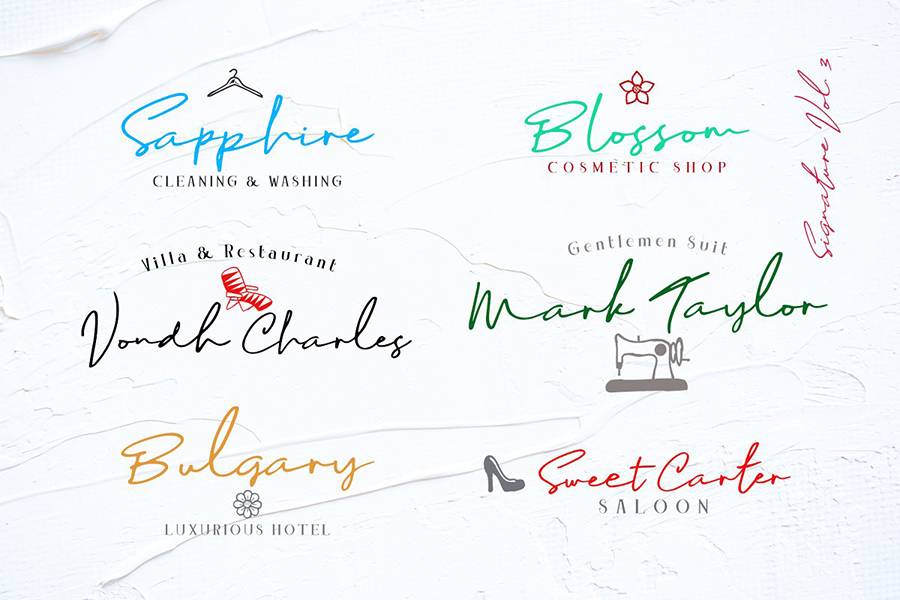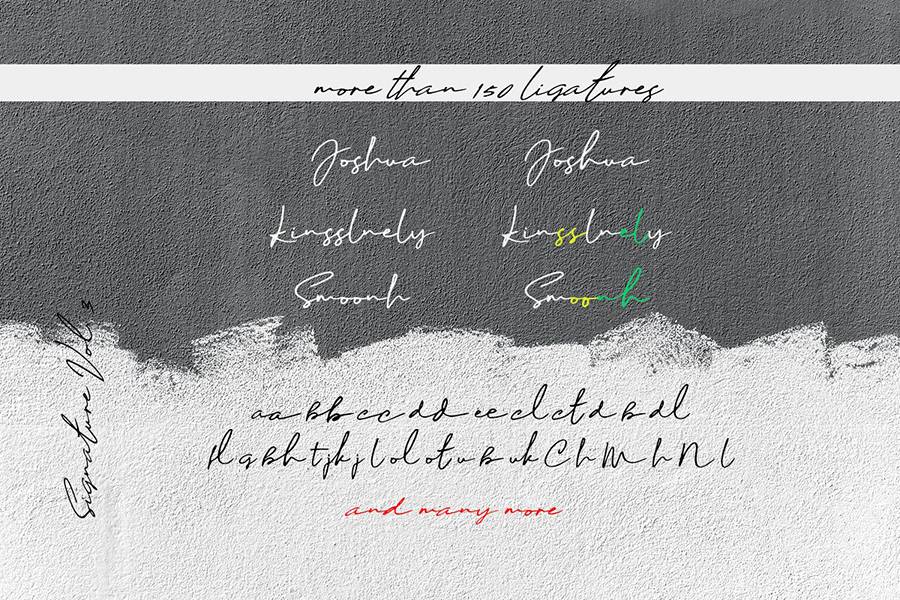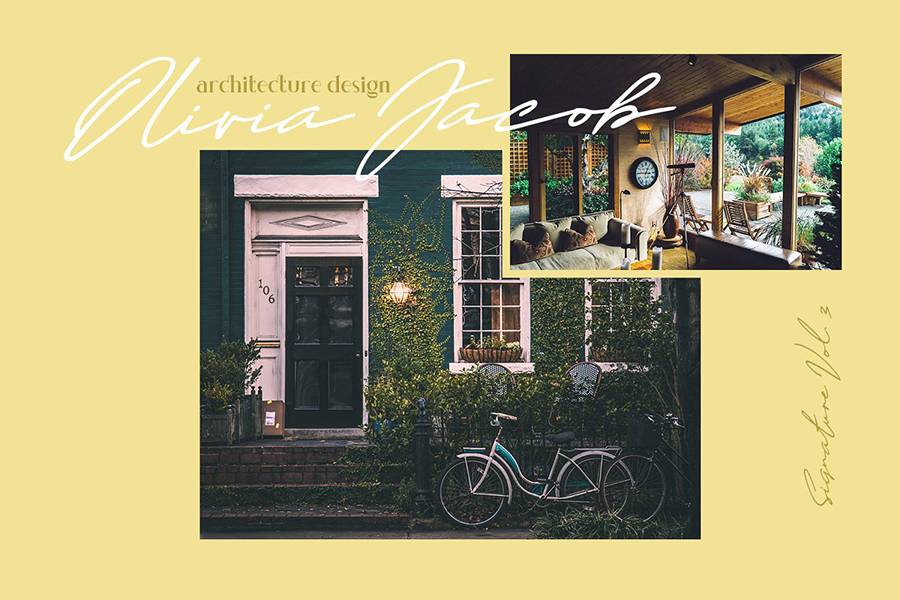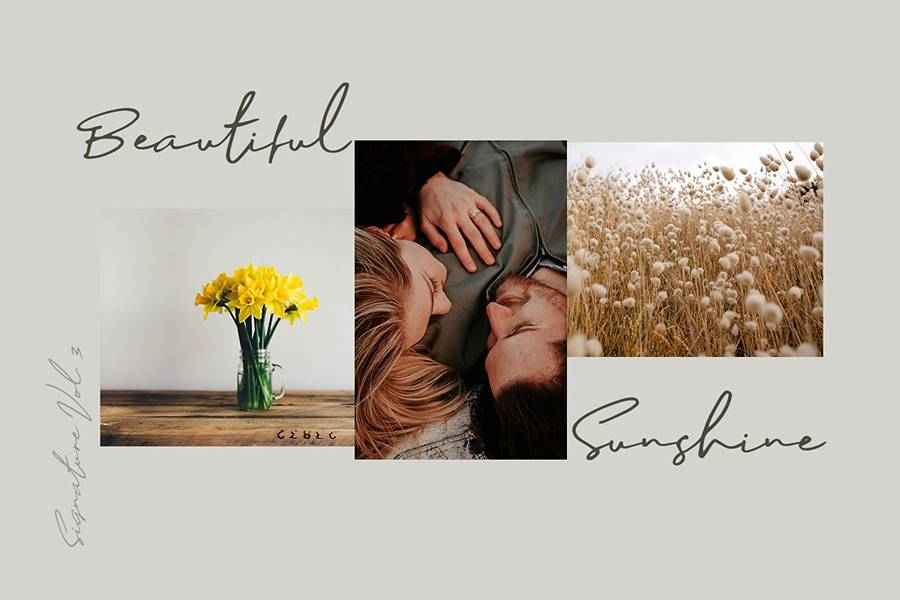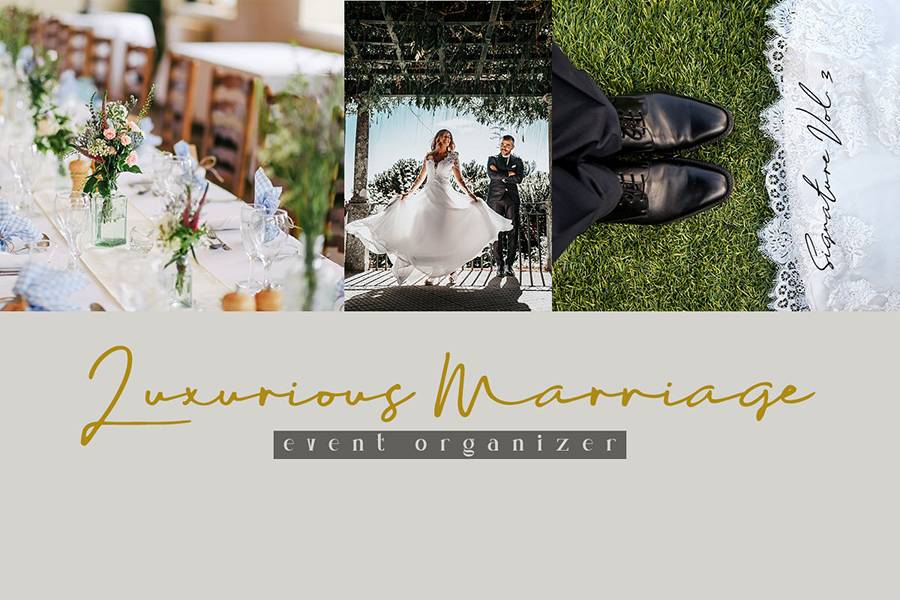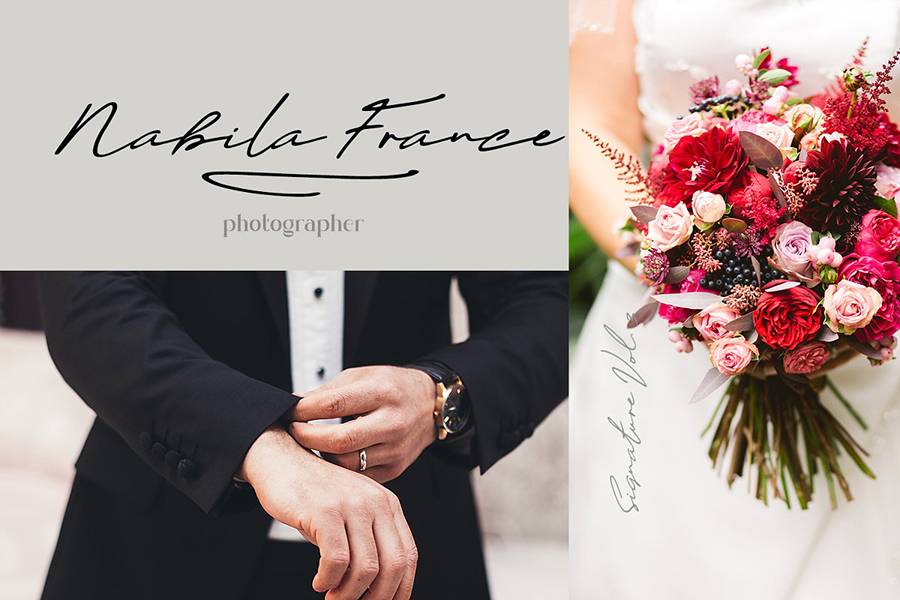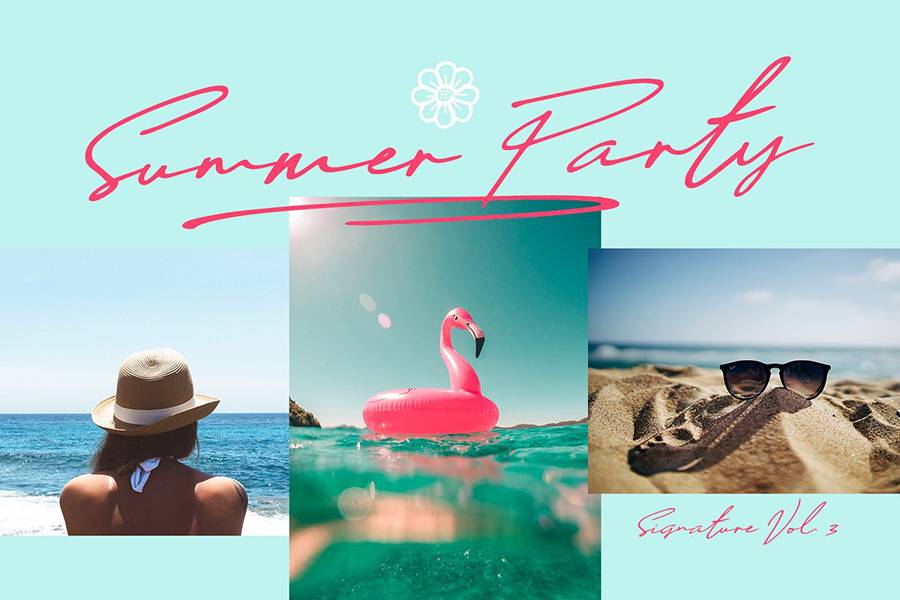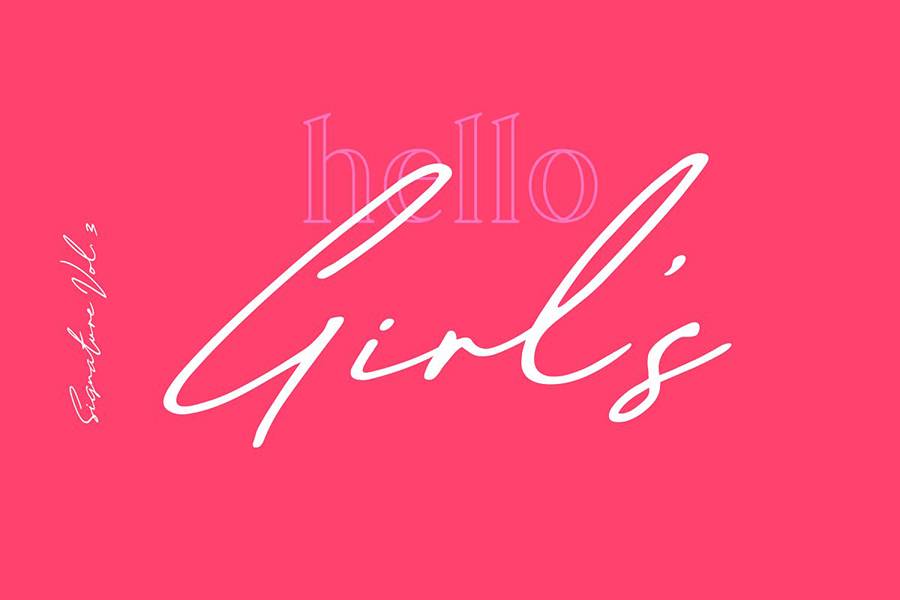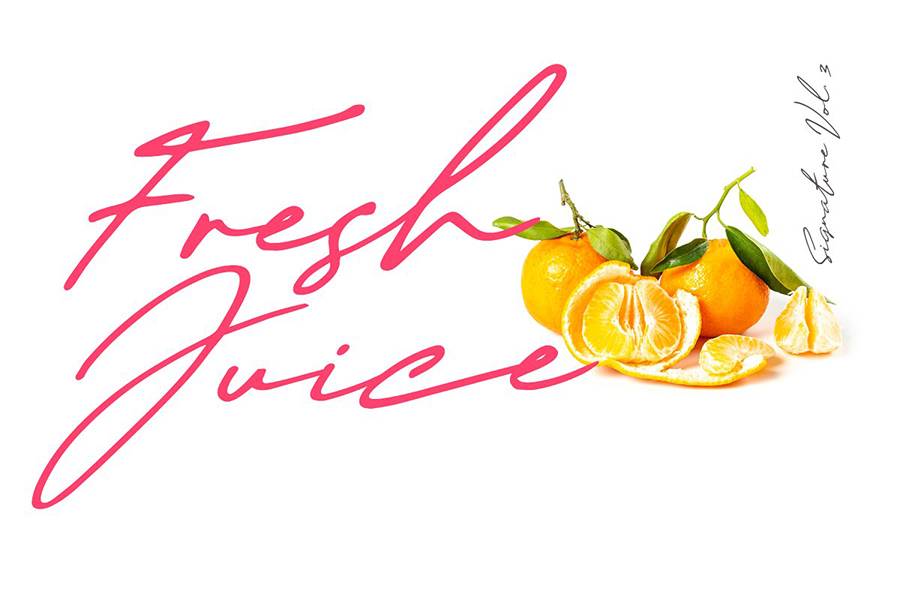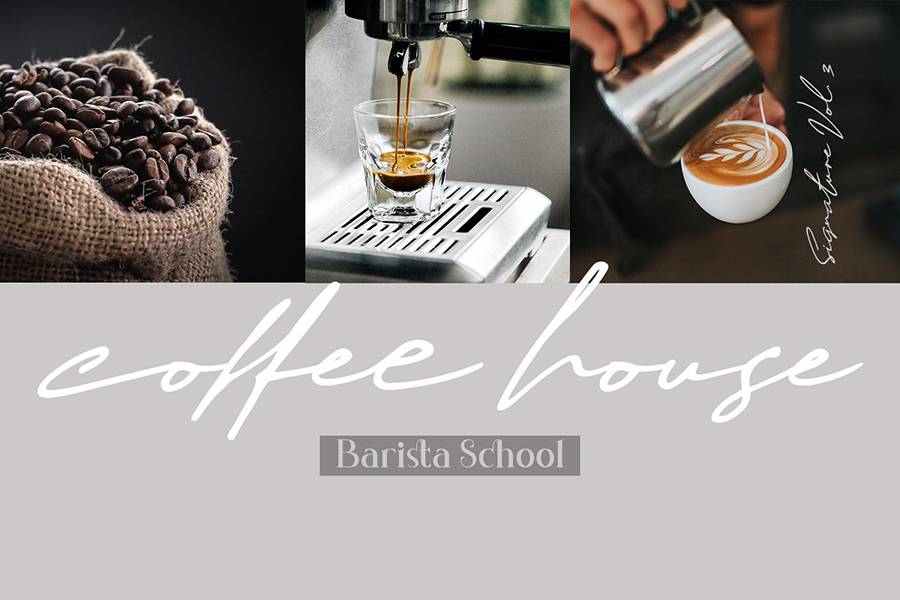
Sophia Bella Signature is a stylish, handwritten script font with a light, delicate weight and a natural, flowing stroke that mimics authentic cursive handwriting. Its tall x-height and slender letterforms make it feel elegant and personal, perfect for branding, invitations, and creative projects that want a warm, approachable, and sophisticated look. This font works well for designs that need a touch of personality and charm without sacrificing readability.
Sophia Bella Signature Font
About Sophia Bella Signature Font